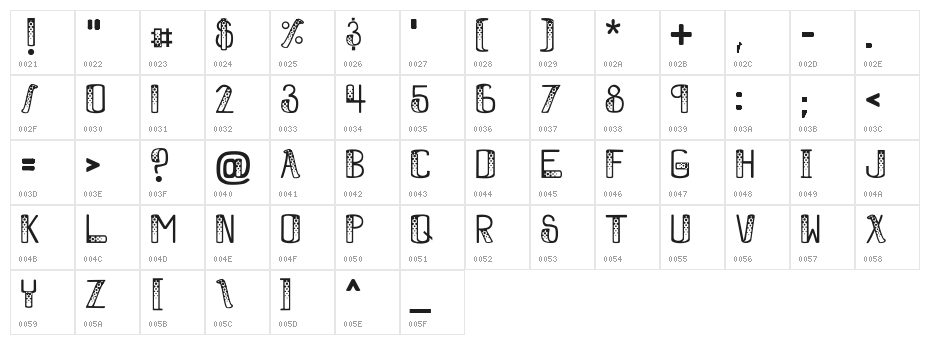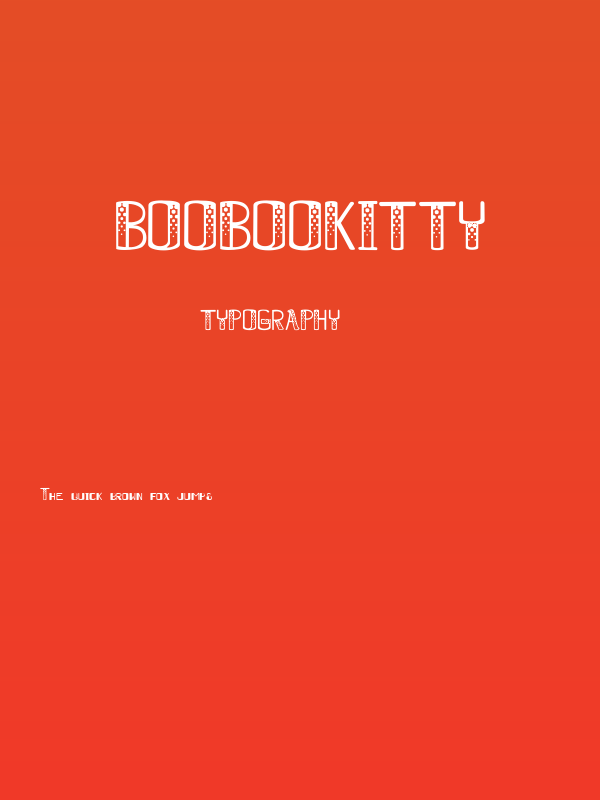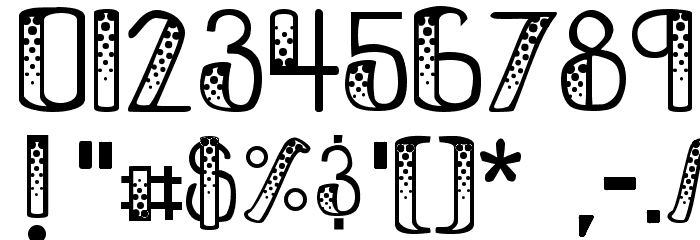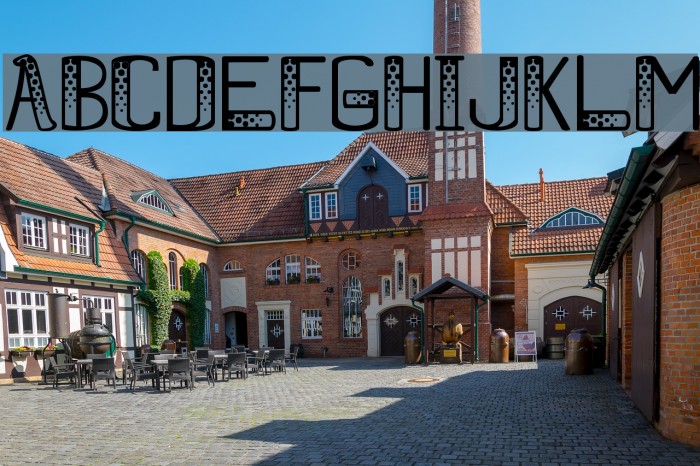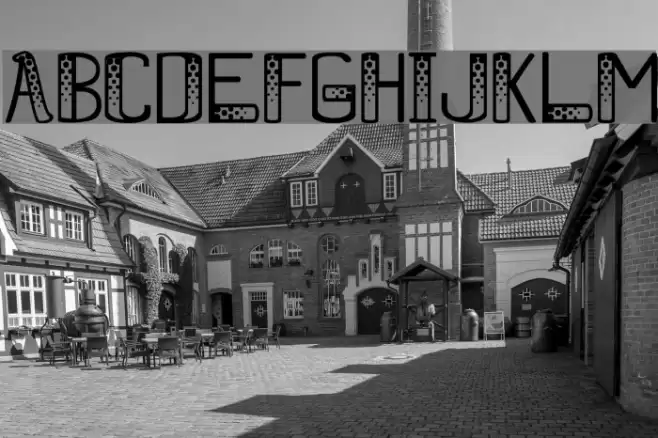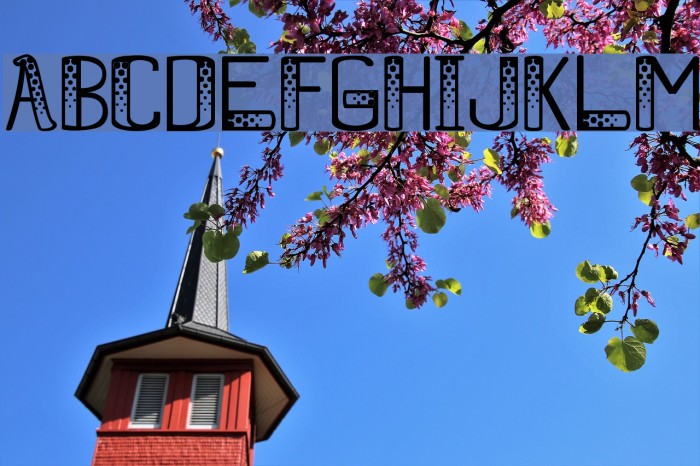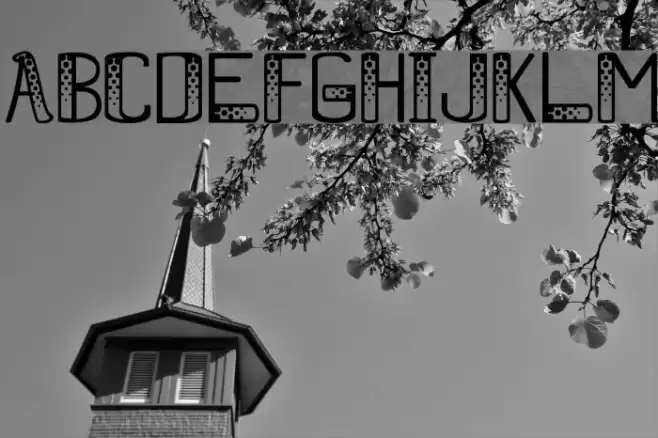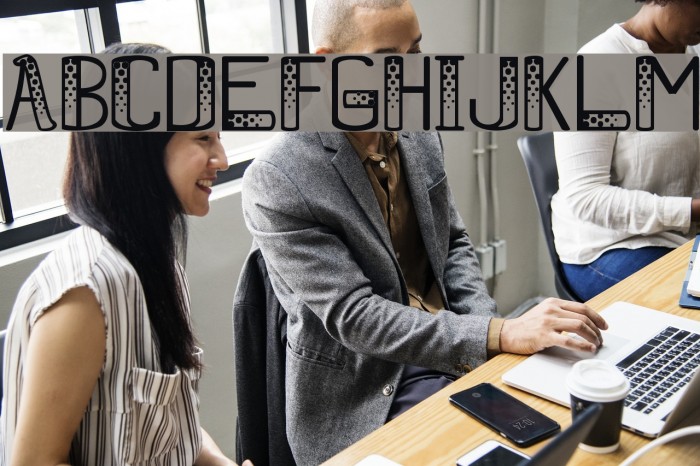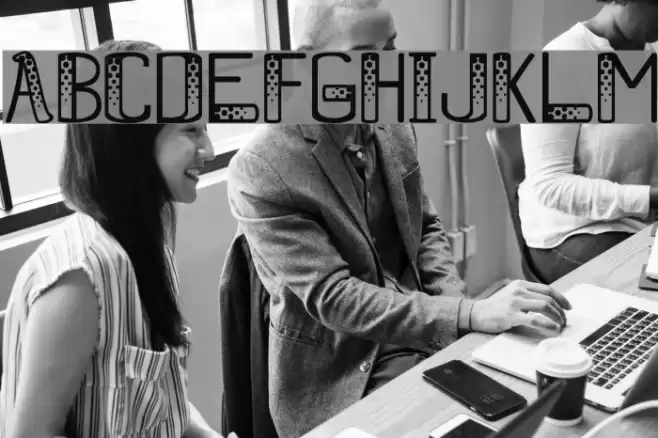
BooBooKitty Font
BooBooKitty Description
This font features a playful and decorative style, characterized by a mix of solid and dotted patterns within the letterforms. The uppercase letters have a unique combination of bold and hollow designs, creating a visually engaging effect. The lowercase letters maintain a consistent style, complementing the uppercase with their quirky and artistic flair. Numbers and special characters follow the same decorative theme, adding to the font's cohesive appearance. The overall design is bold and eye-catching, making it suitable for creative and fun projects.
| Use Case | Logos, Headlines, Posters |
| Proposed Projects | Ideal for children's books, playful branding, party invitations, and creative posters. |